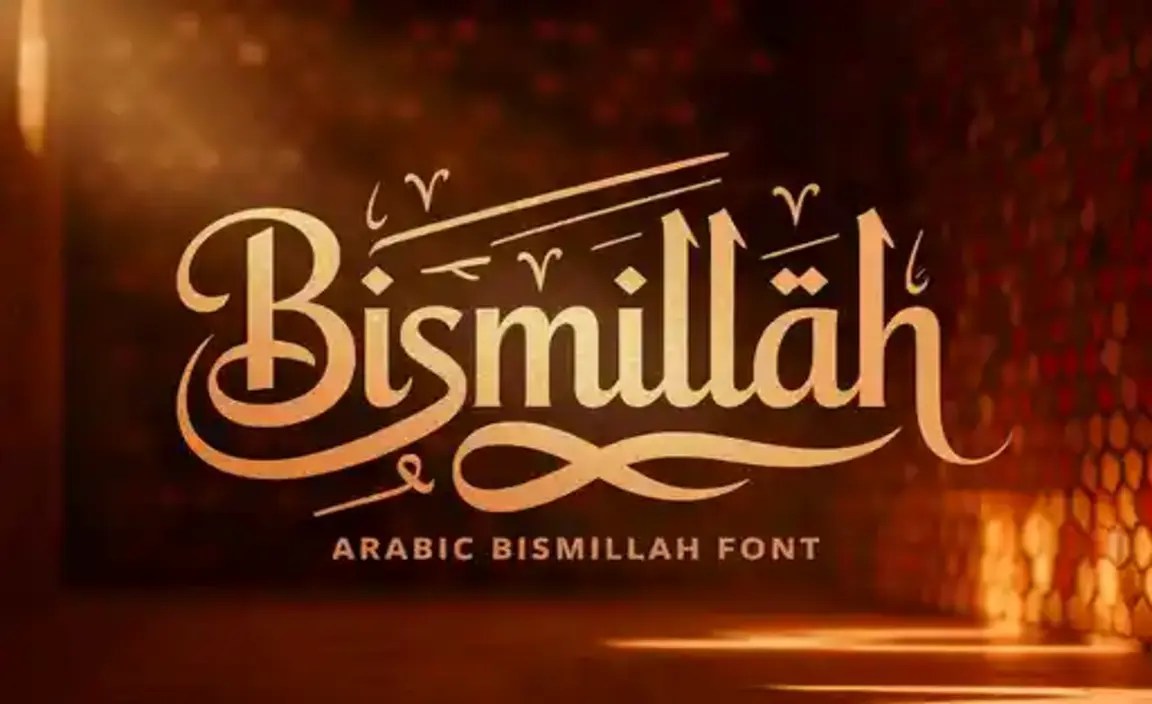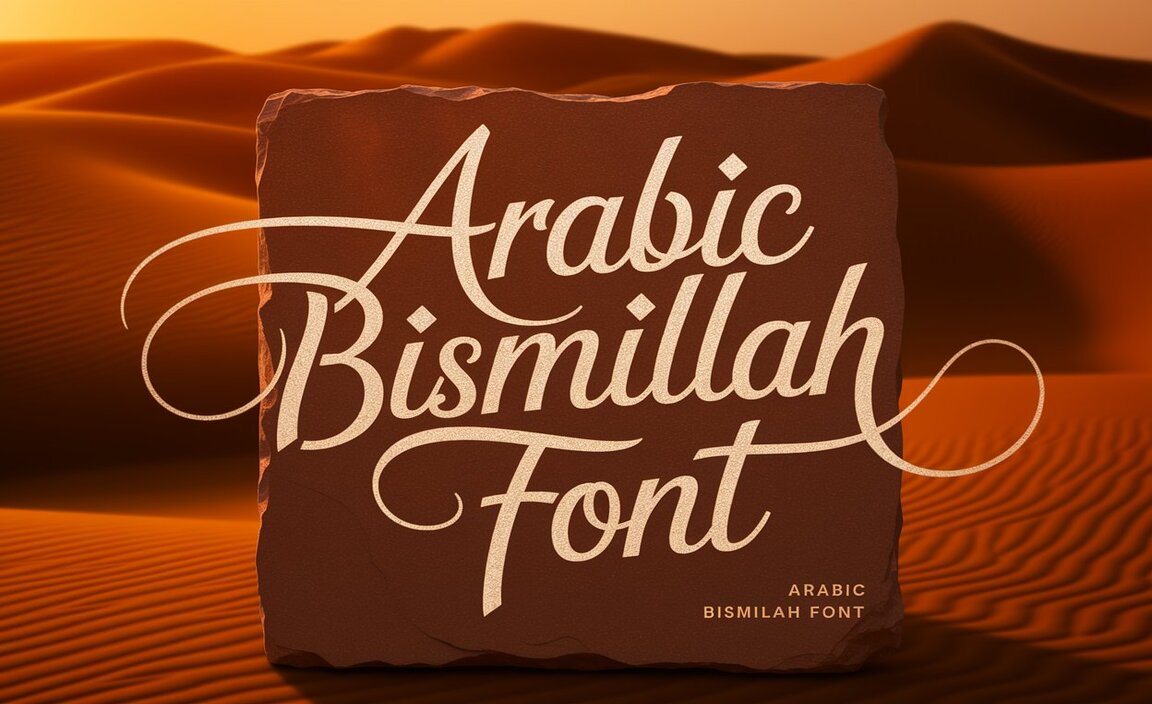
The Arabic Bismillah Font is a stunning calligraphic typeface designed for projects inspired by Islamic art and culture. Known for its intricate details and spiritual significance, it beautifully represents phrases like بِسْمِ اللهِ الرَّحْمٰنِ الرَّحِيْمِ (Bismillahirrahmanirrahim). This font has become popular among designers for creating peace, prayer, and wall decor content. Key takeaway: The Arabic Bismillah Font blends tradition and modernity, making it ideal for personal and professional use.
Arabic Bismillah Font Overall Details
The Arabic Bismillah Font beautifully reflects Islamic values through its spiritual essence, showcasing phrases like Bismillahirrahmanirrahim and Alhamdulillah. Inspired by traditional Arabic handwriting, it features intricate calligraphy and a versatile character map supporting Arabic, Urdu, and Latin alphabets. The Arabic Bismillah Font captures a sense of spirituality and elegance. Its calligraphy-inspired design adds a touch of sophistication to religious and cultural projects.
| Style | Calligraphy |
| Type | Decorative, Religious |
Key Features
- Spiritual Essence: Designed with a focus on Islamic values and phrases like Alhamdulillah and Bismillahirrahmanirrahim.
- Calligraphic Style: Reflects traditional Arabic calligraphy while being adaptable to modern designs.
- Character Map: Includes detailed glyphs for Arabic, Urdu, and Latin alphabets.
- Cultural Relevance: Ideal for projects focusing on Quranic content, Islamic decor, and Muslim identity.
Pros:
- Beautifully crafted for Islamic calligraphy projects.
Where Is Arabic Bismillah Font In Use?
This font is widely used for:
- Wall Decor: Perfect for Islamic art prints and home designs.
- Logos and Branding: Frequently featured in logos for Muslim businesses.
- Religious Content: Commonly used in Quranic quotes and prayer-based designs.
- Social Media: Found in Pinterest, Twitter, and Google content promoting Islamic culture.
- Personal Projects: Suitable for greeting cards, wedding invitations, and more.
Unlike other fonts, the Arabic Bismillah Font emphasizes intricate handwriting-style calligraphy while maintaining readability. Its character map showcases unique shapes and forms, making it perfect for Islamic wall decor and prayer-related designs.
Facts Related To This Arabic Font
- Inspired by traditional Arab calligraphy.
- Frequently used for Islamic phrases like Bismillahirrahmanirrahim and Alhamdulillah.
- Ideal for showcasing peace and prayer in art.
- Compatible with both English and Arabic alphabets.
- Provides a unique handwriting-style aesthetic.
- Often used in Quranic verse illustrations.
- Celebrated for its spiritual and artistic values.
9.Can It Be Used In Logos?
Yes, the Arabic Bismillah Font is widely used in Islamic-themed logos. Its intricate and artistic design lends a spiritual and cultural identity to logos, making it suitable for businesses or organizations that want to reflect these values.